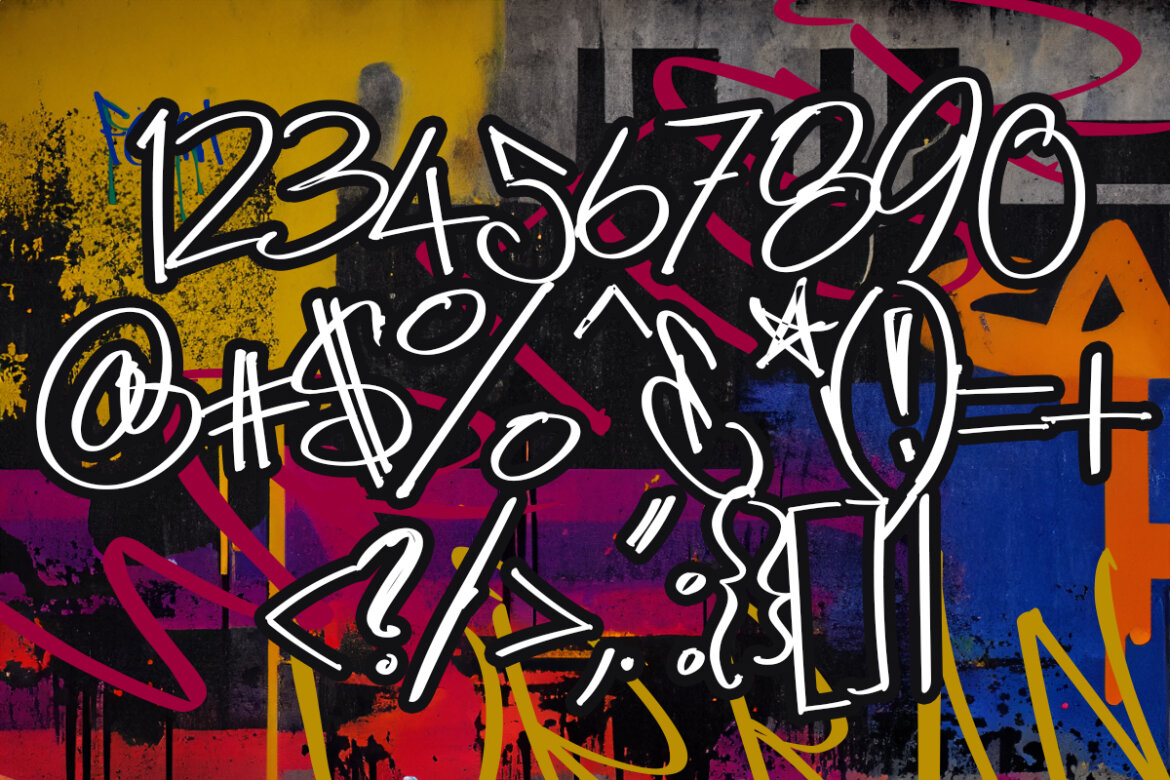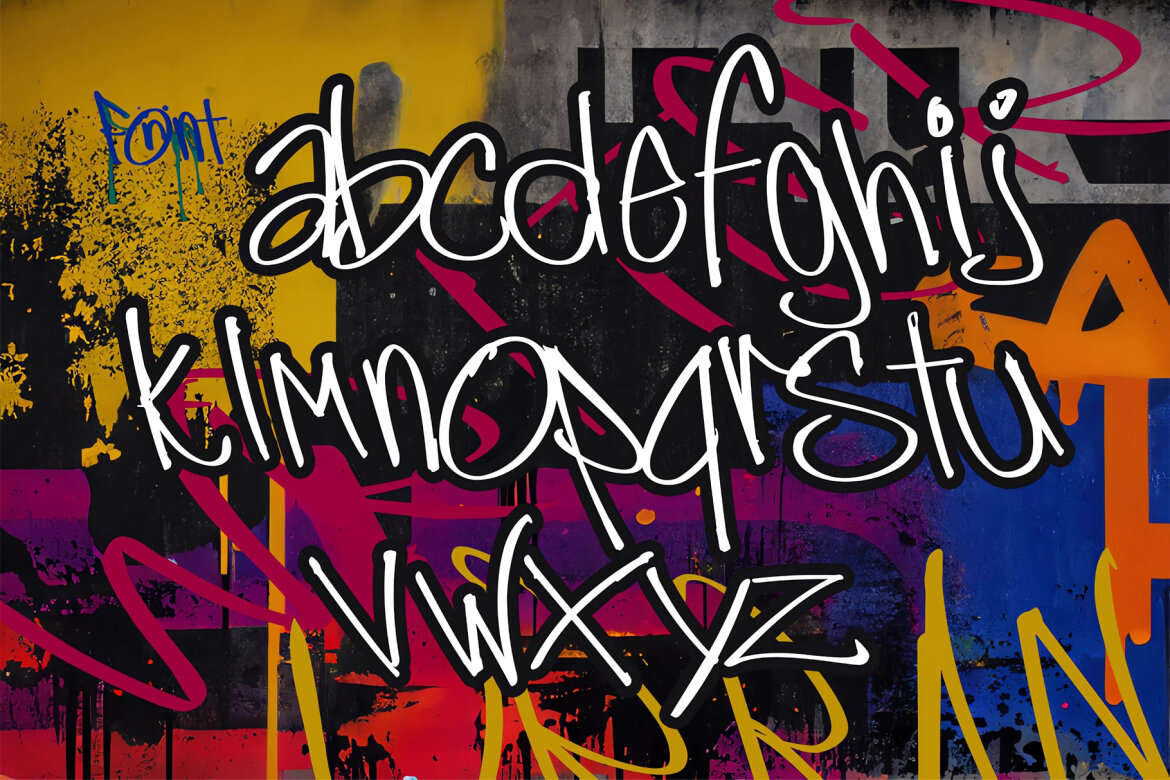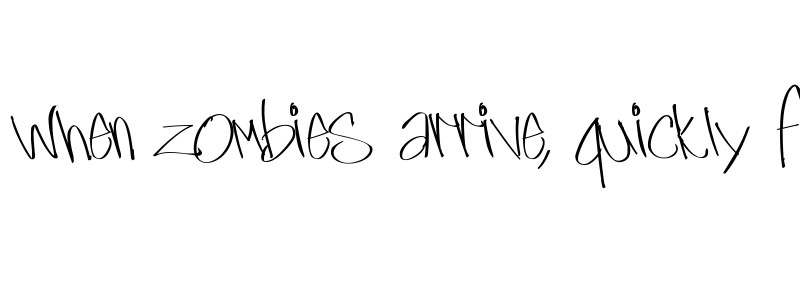
Urban Writer FREE Font
Urban Writer is a fun handwritten font with that classic urban style, perfect for taking any hipster-themed project to the next level. Includes TTF and OTF formats.